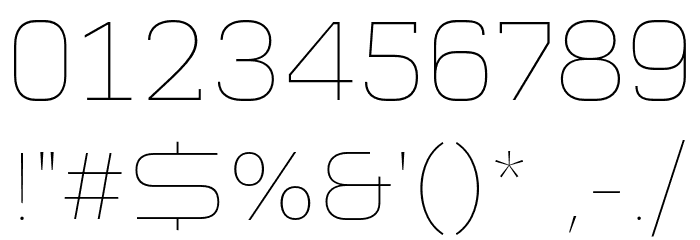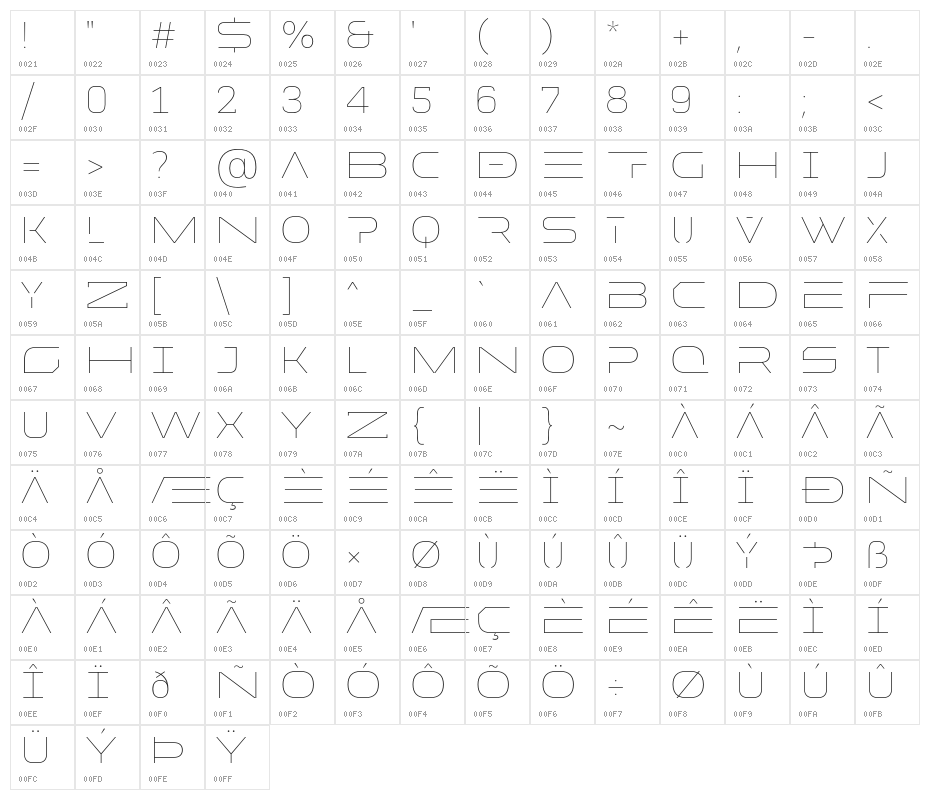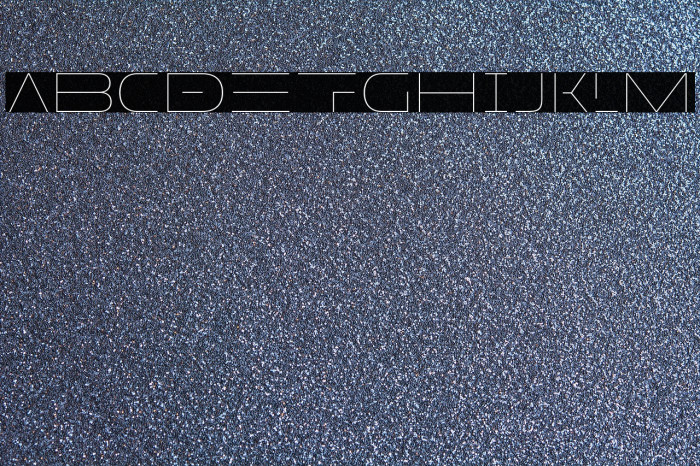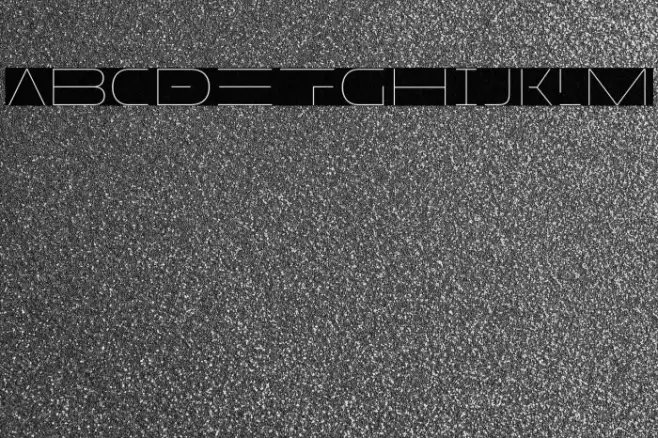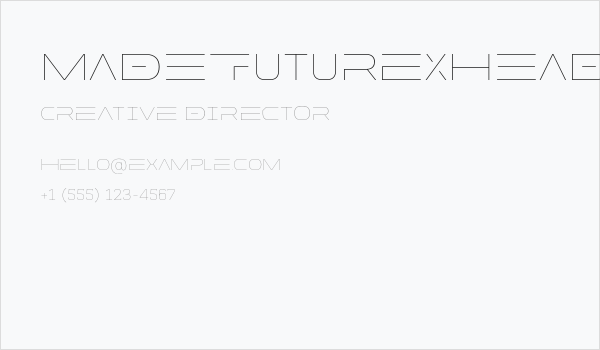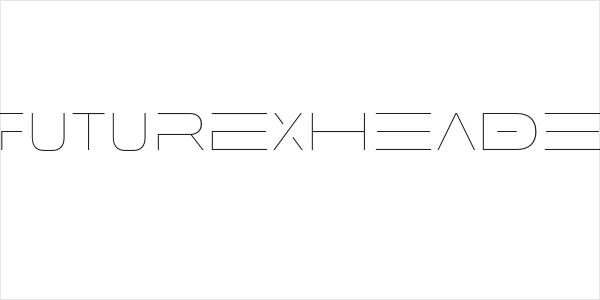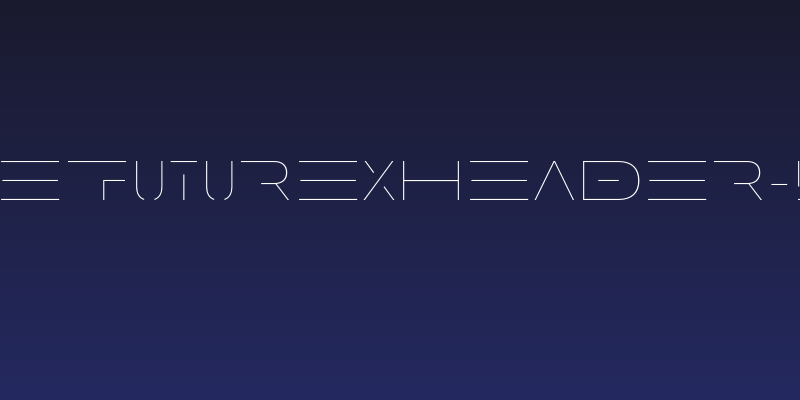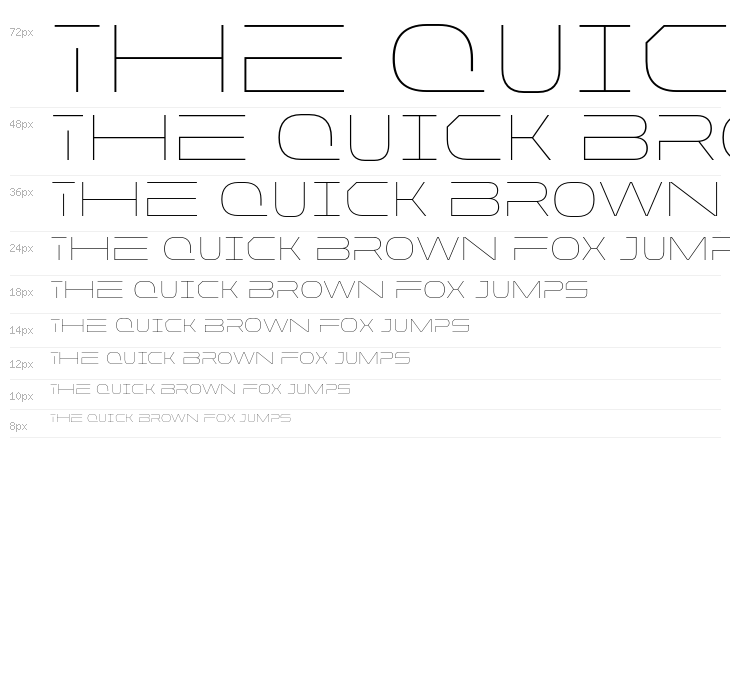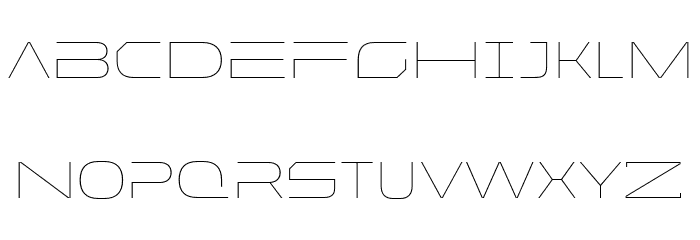
MADEFutureXHEADER-Line Font
This font features a modern, geometric design with a minimalist aesthetic. The characters are composed of thin, linear strokes that create a sense of openness and clarity. The uppercase and lowercase letters maintain a consistent style, emphasizing straight lines and angular cuts. The numerals and special characters follow the same design principles, ensuring uniformity across all elements. The font's simplicity and precision make it suitable for contemporary design projects, where a clean and futuristic look is desired.